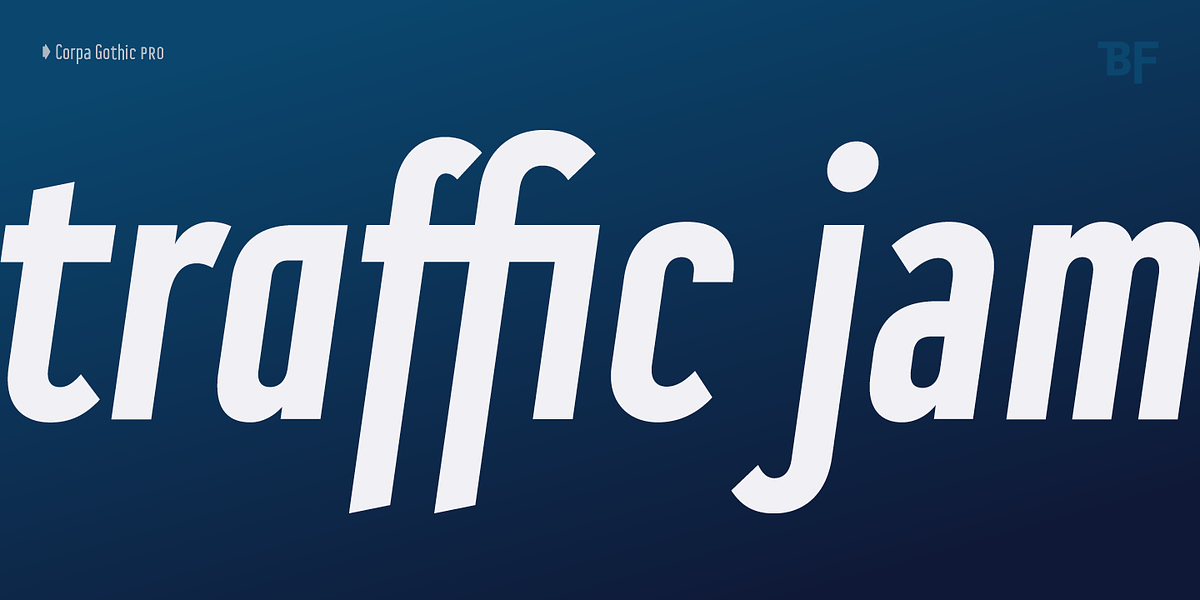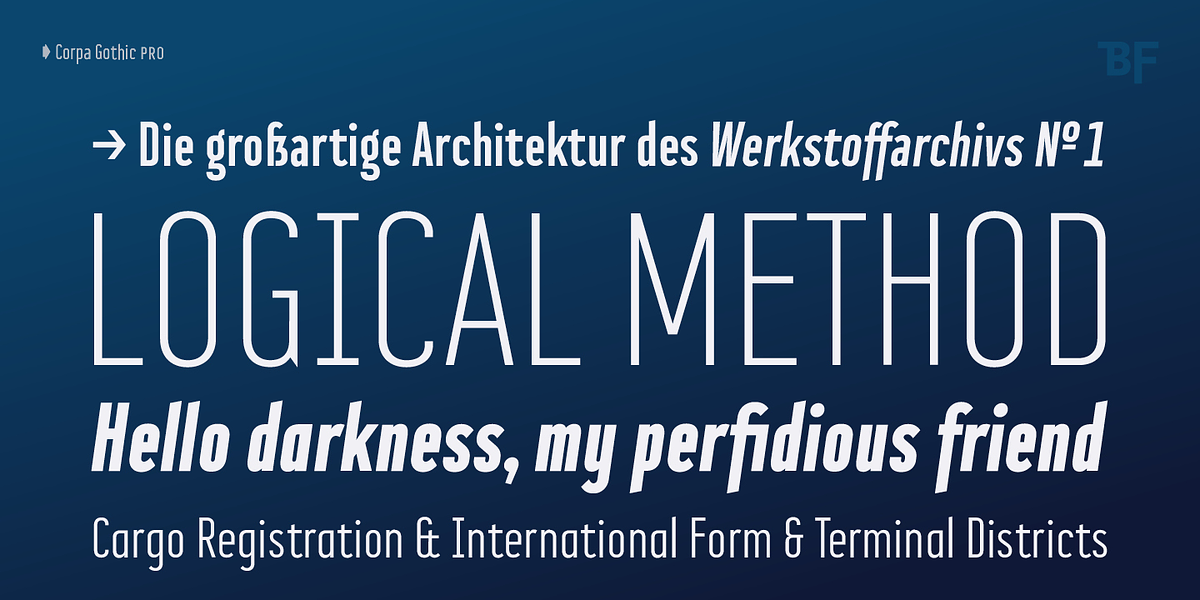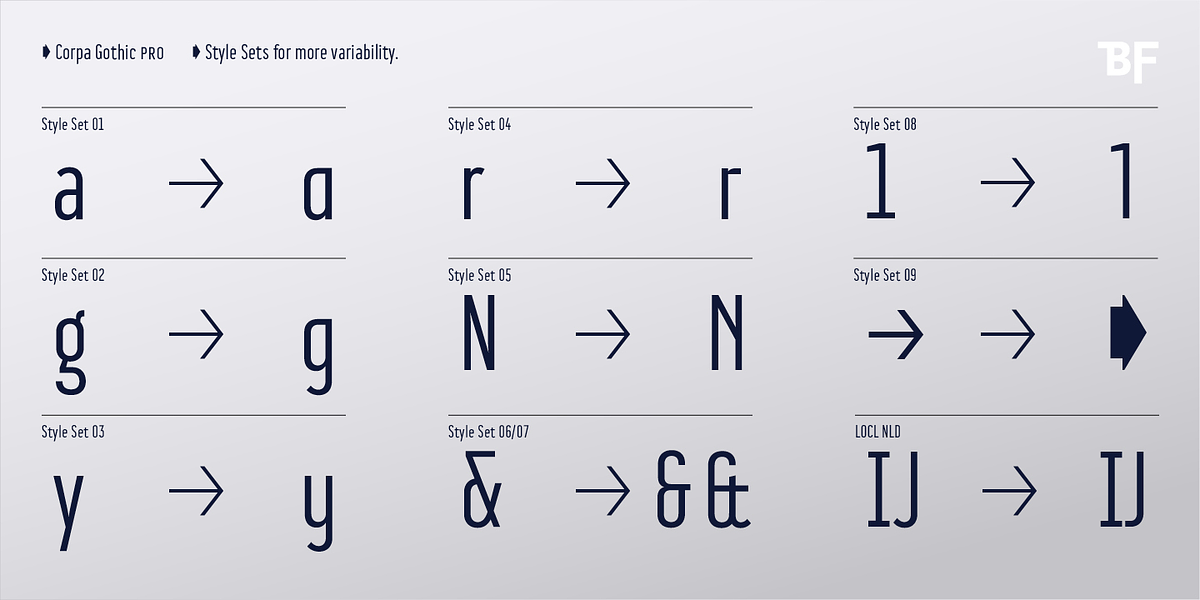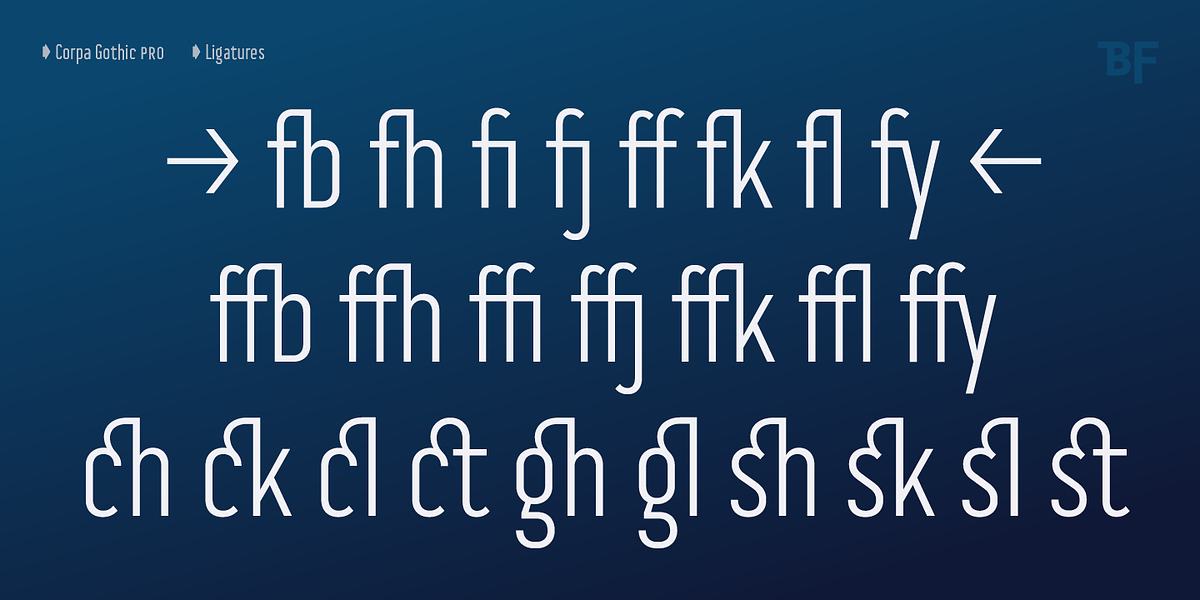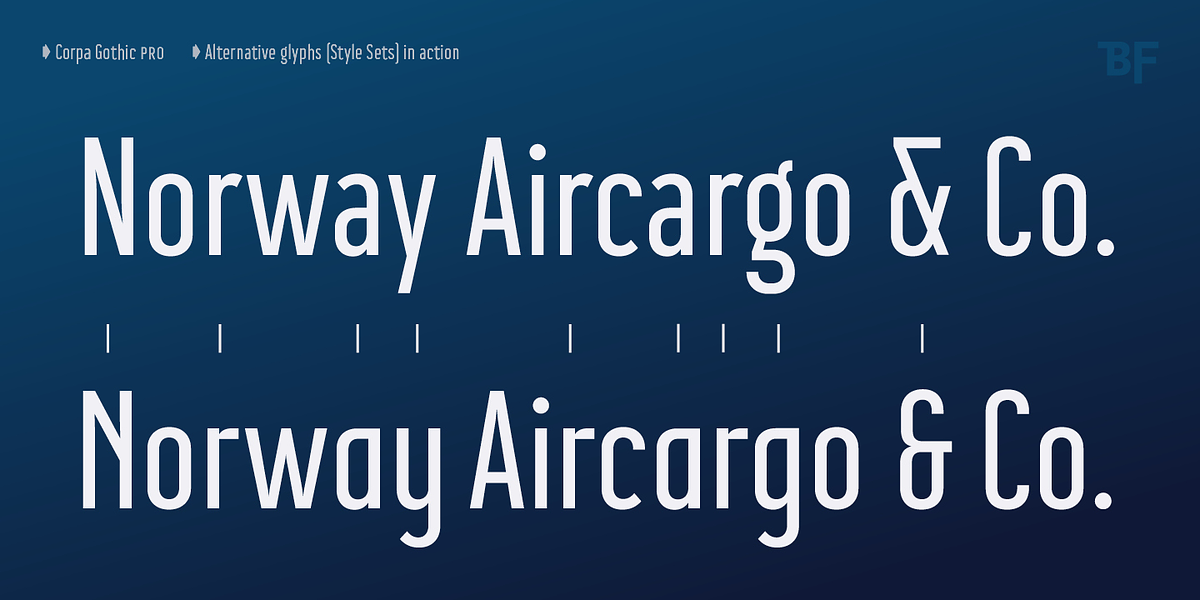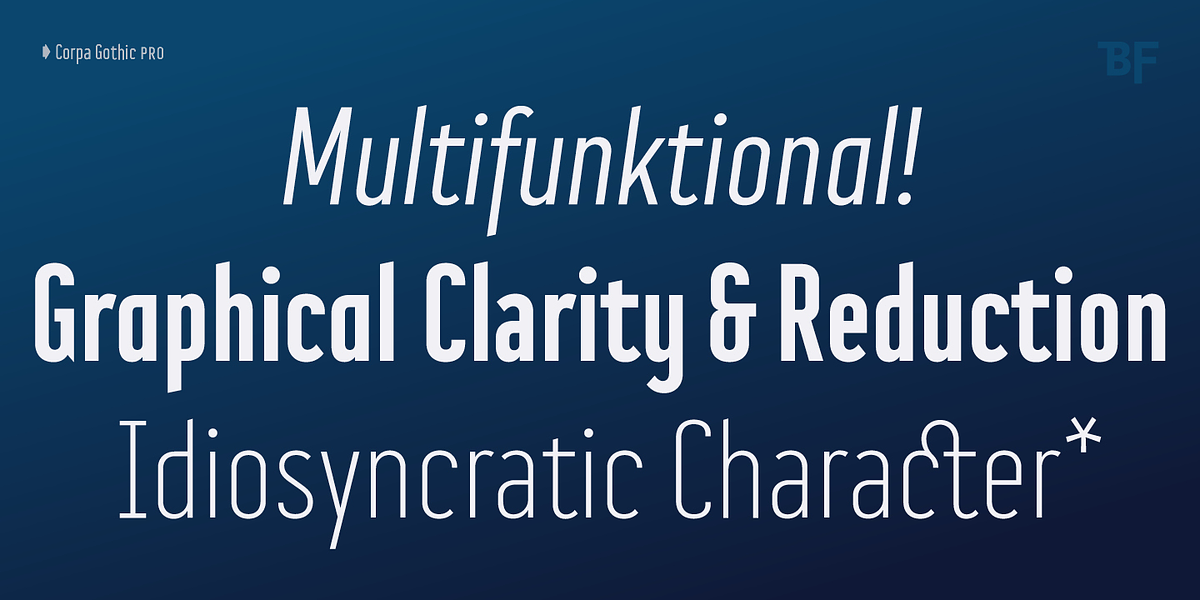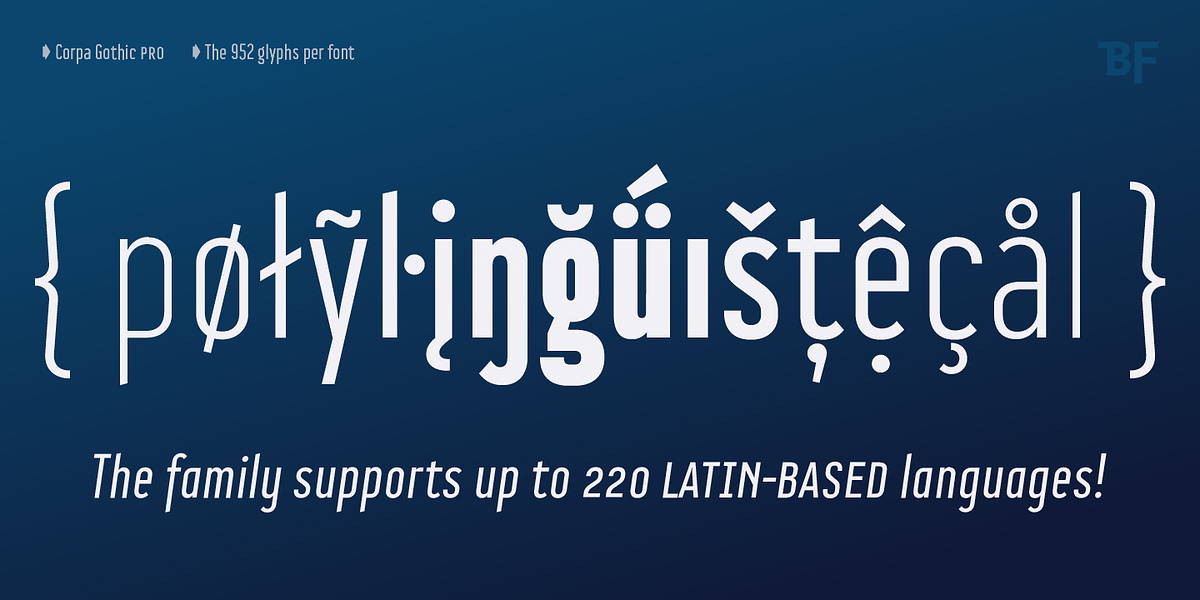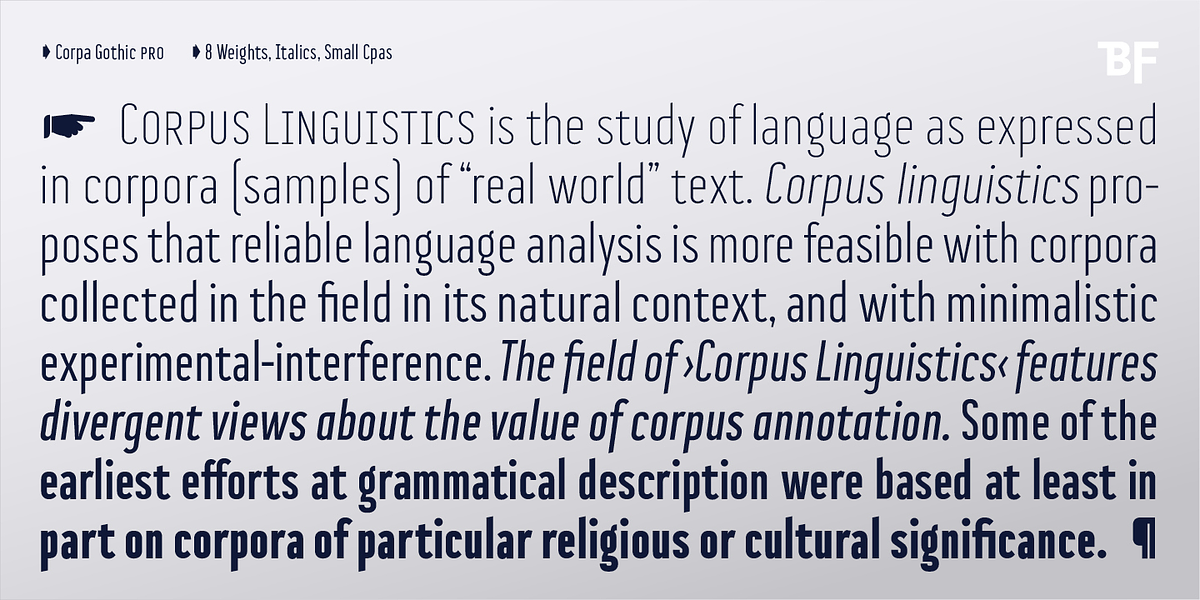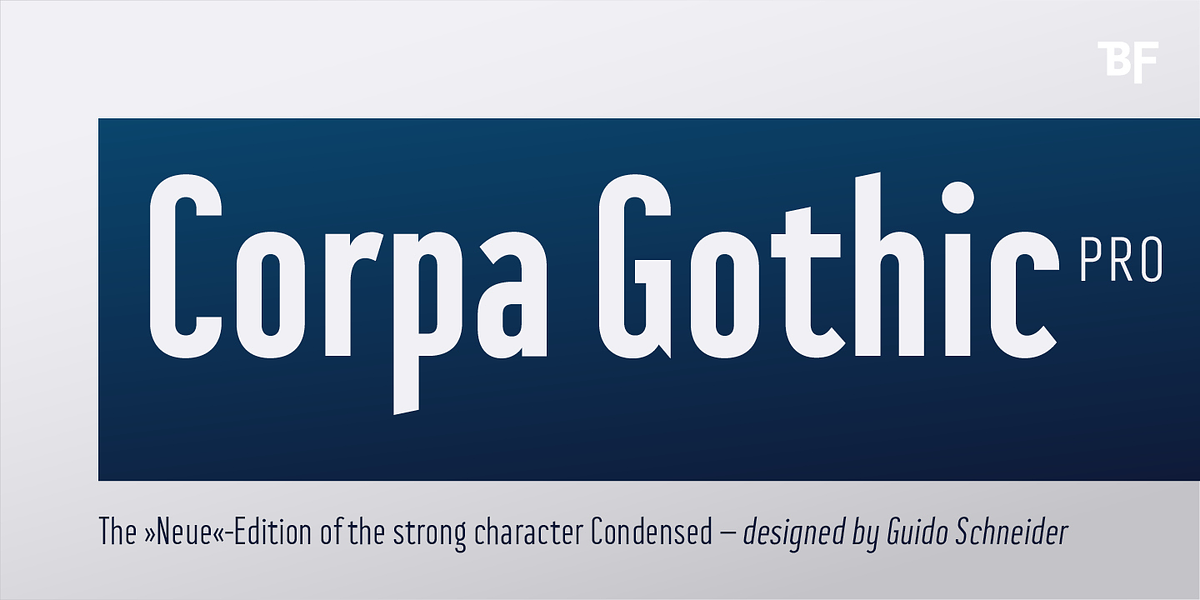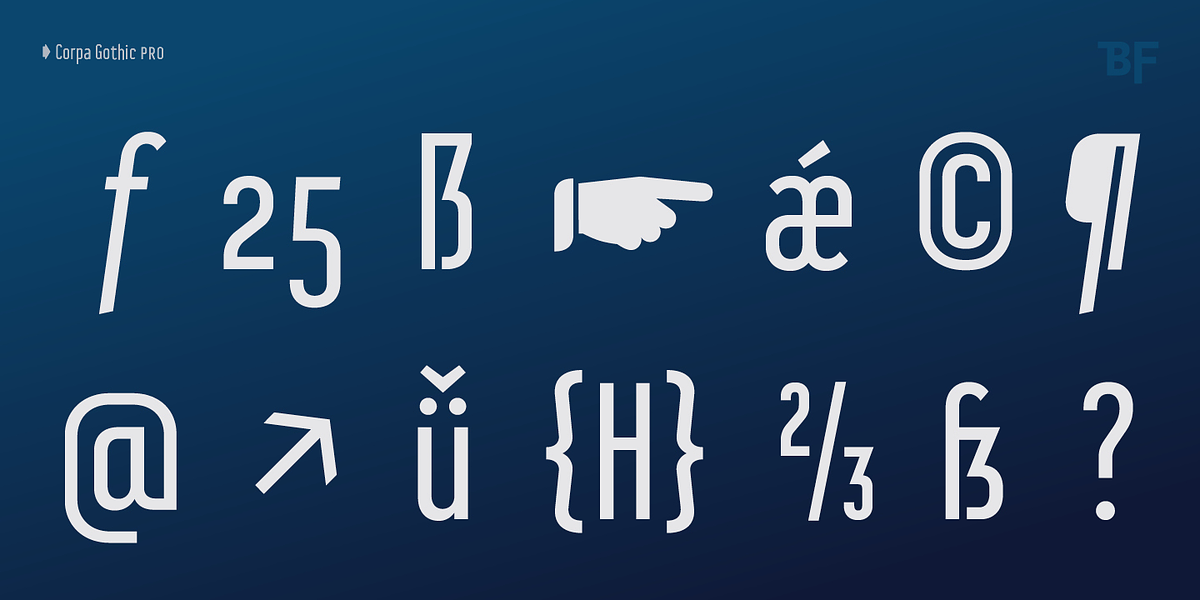
BF Corpa Gothic Pro
BF Corpa Gothic™ Pro is a sans serif typeface inspired by hand-drawn geometric fonts from the 1920s. It has a condensed appearance and unique details that make it both compact and expressive. While rooted in the Grotesque style, BF Corpa Gothic™ Pro offers a constructed yet vivid aesthetic, making it suitable for both headlines and short to medium length text. The typeface includes a range of OpenType features such as multiple figure sets, ligatures, currency symbols, fractions, alternates, special characters, arrows, and symbols – along with small caps. With nine style sets available, designers can customize the typeface without altering its overall visual feel.